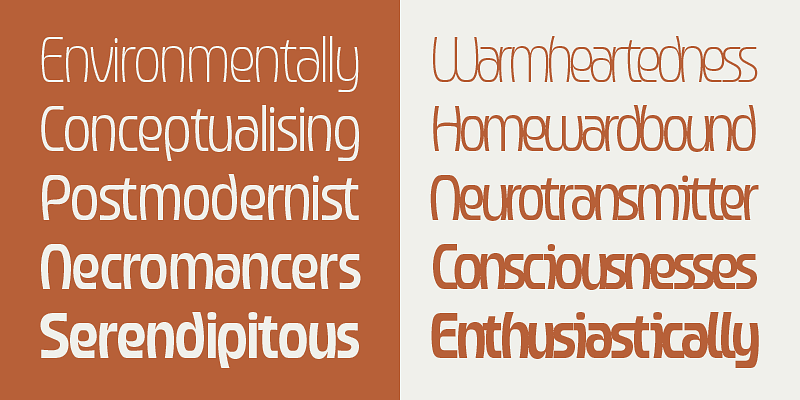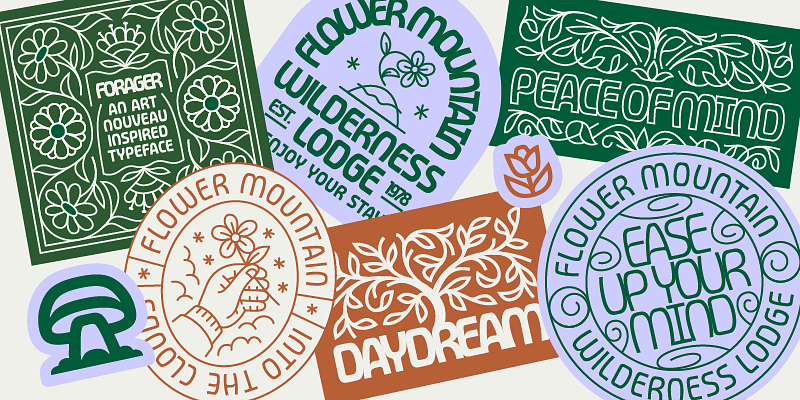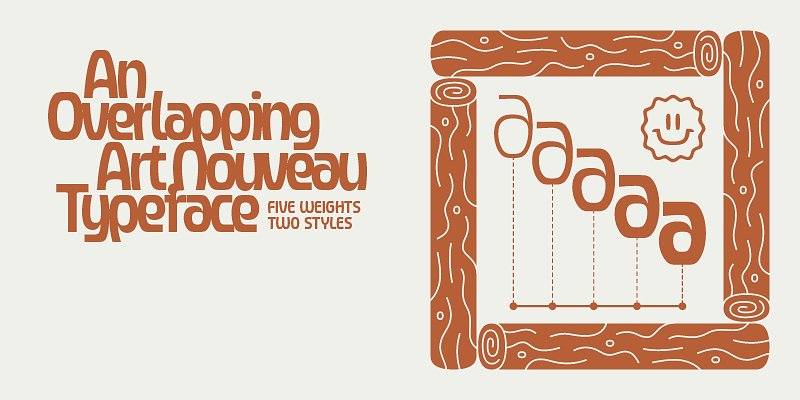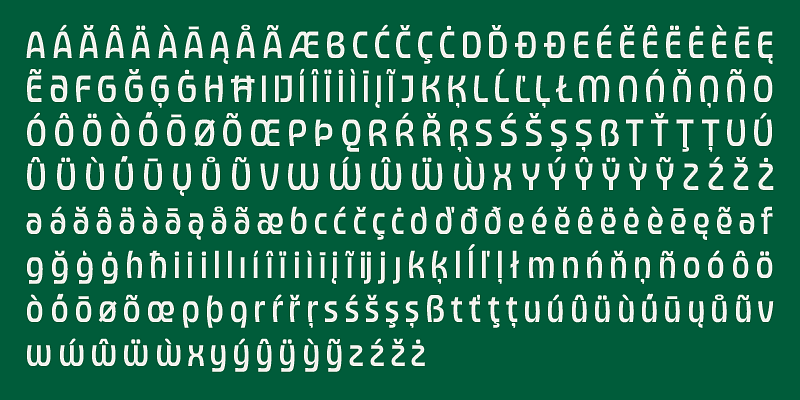
Forager is the culmination of a deep love for display fonts, nature, and psychedelic rock. It combines the design aesthetics of the 70s, the flow of Art Nouveau, and the simplicity of sans serifs into an overlapping typeface. The typeface has a combination of bowed verticals and flat horizontals that give Forager its rounded square shape which helps to improve legibility when overlapped. The family consists of five weights in both overlap, and tightly spaced styles